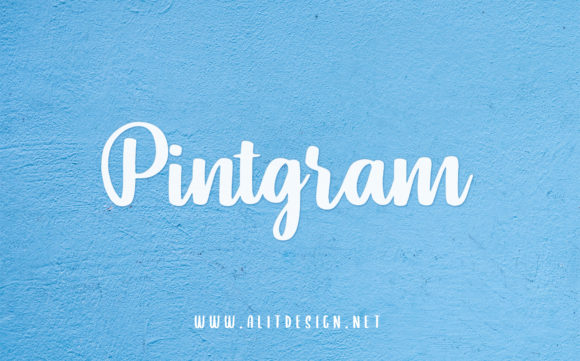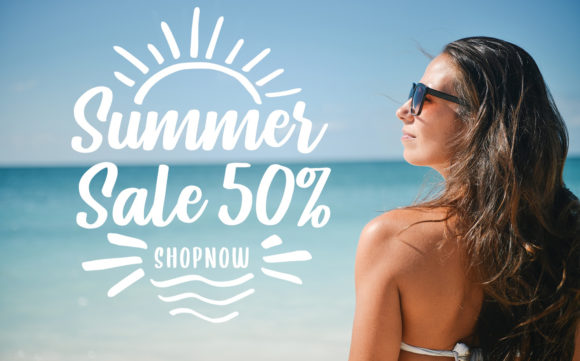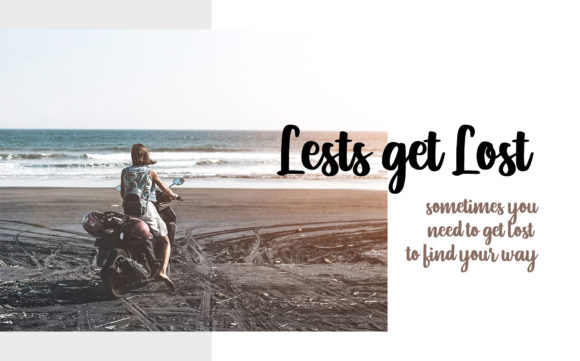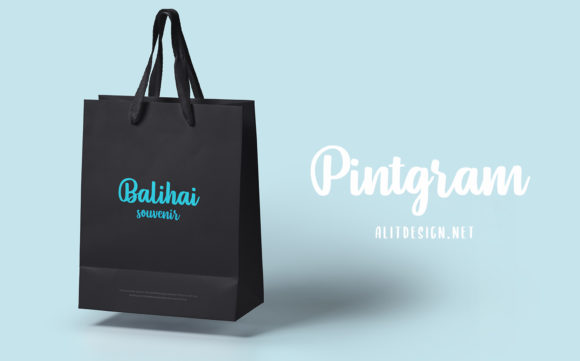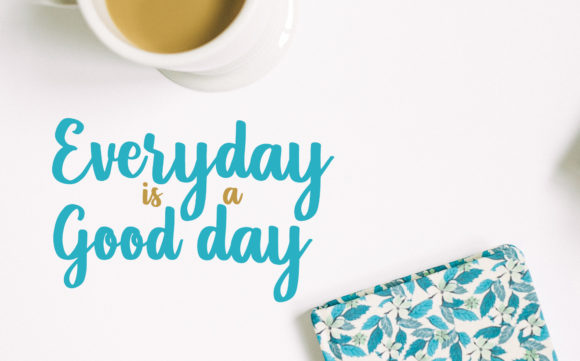
Pintgram Font
About Pintgram Font
Pintgram is an incredibly light and sweet script that will add a level of cuteness to your next design idea. Fall in love with its effortless beauty.